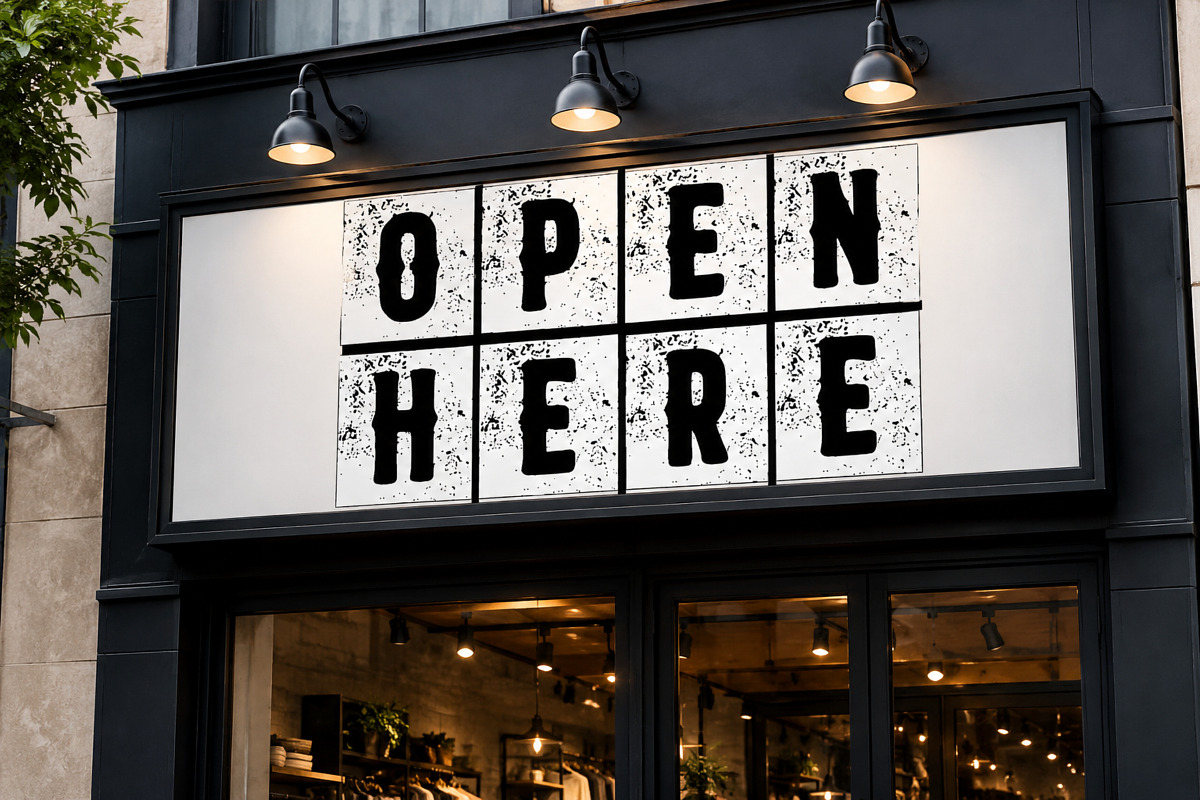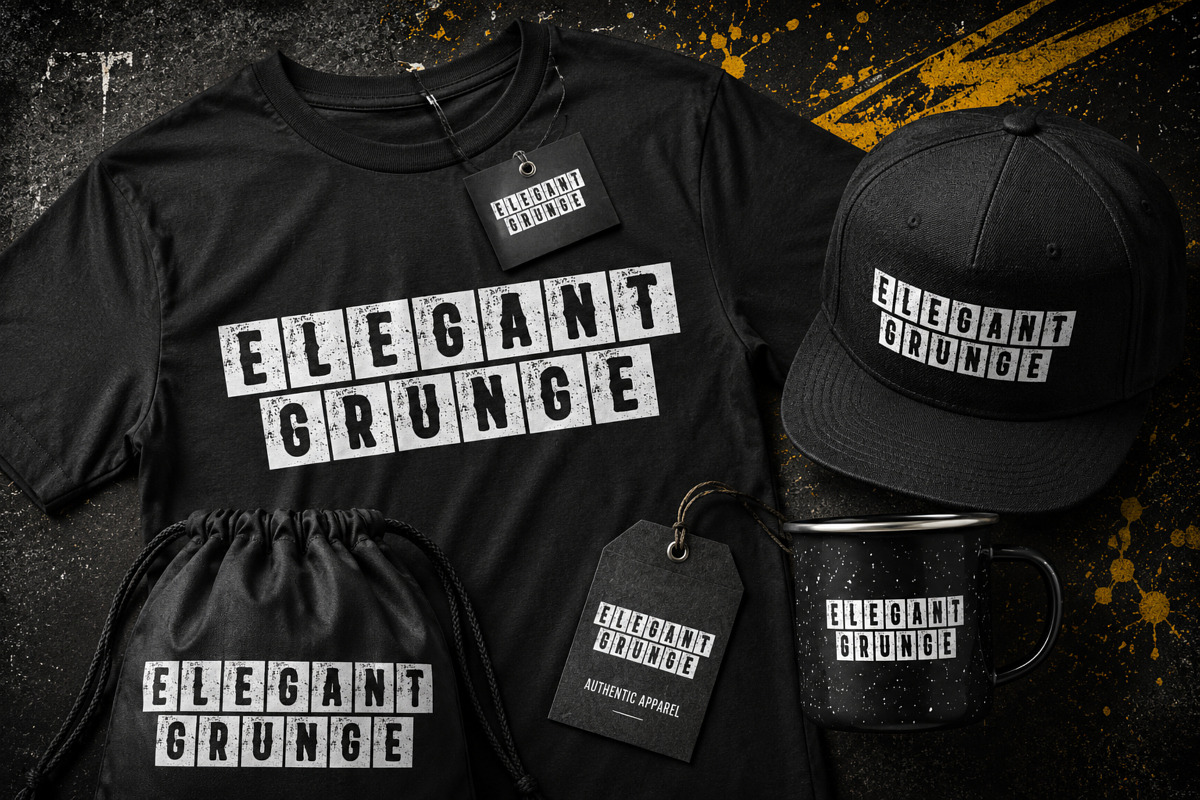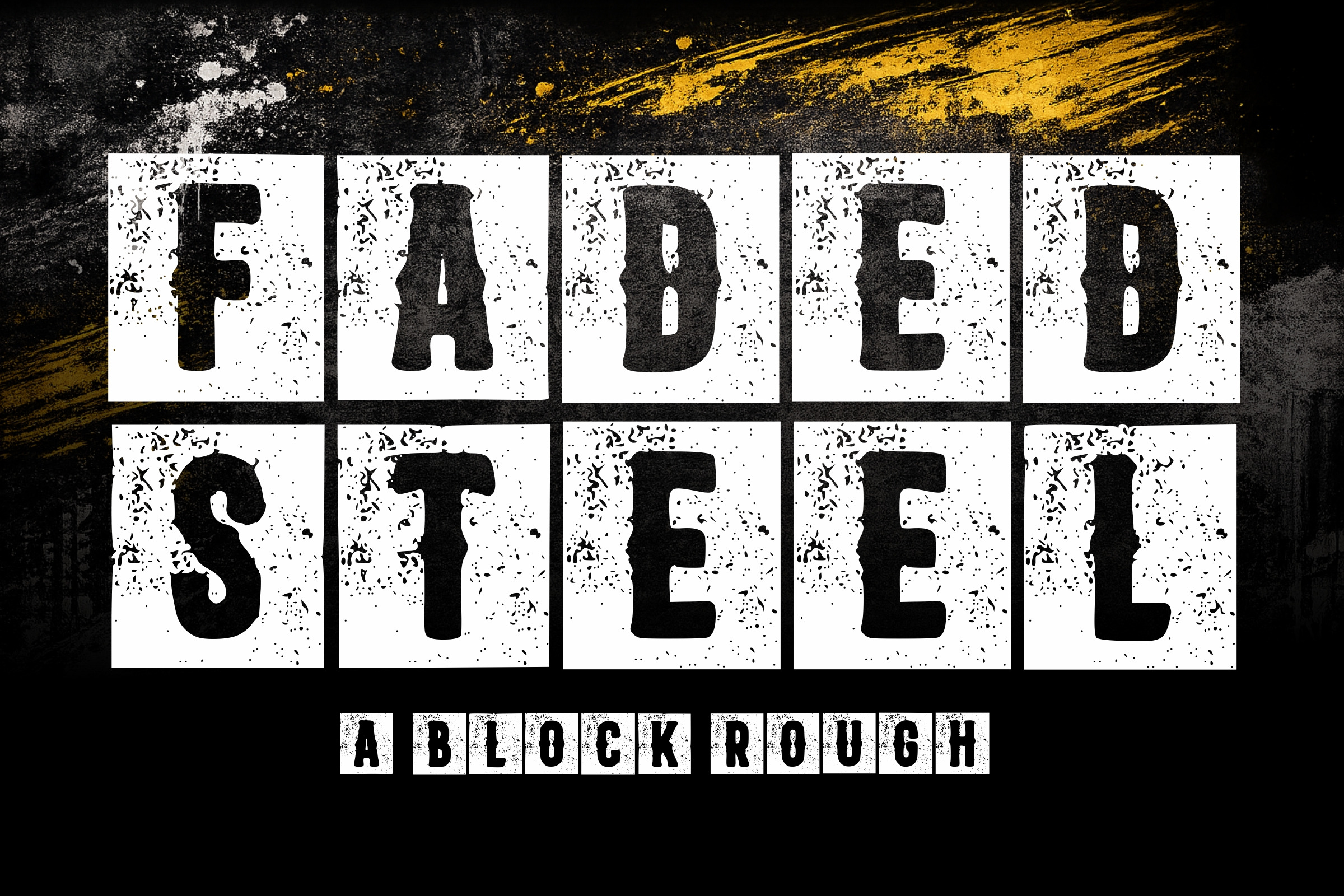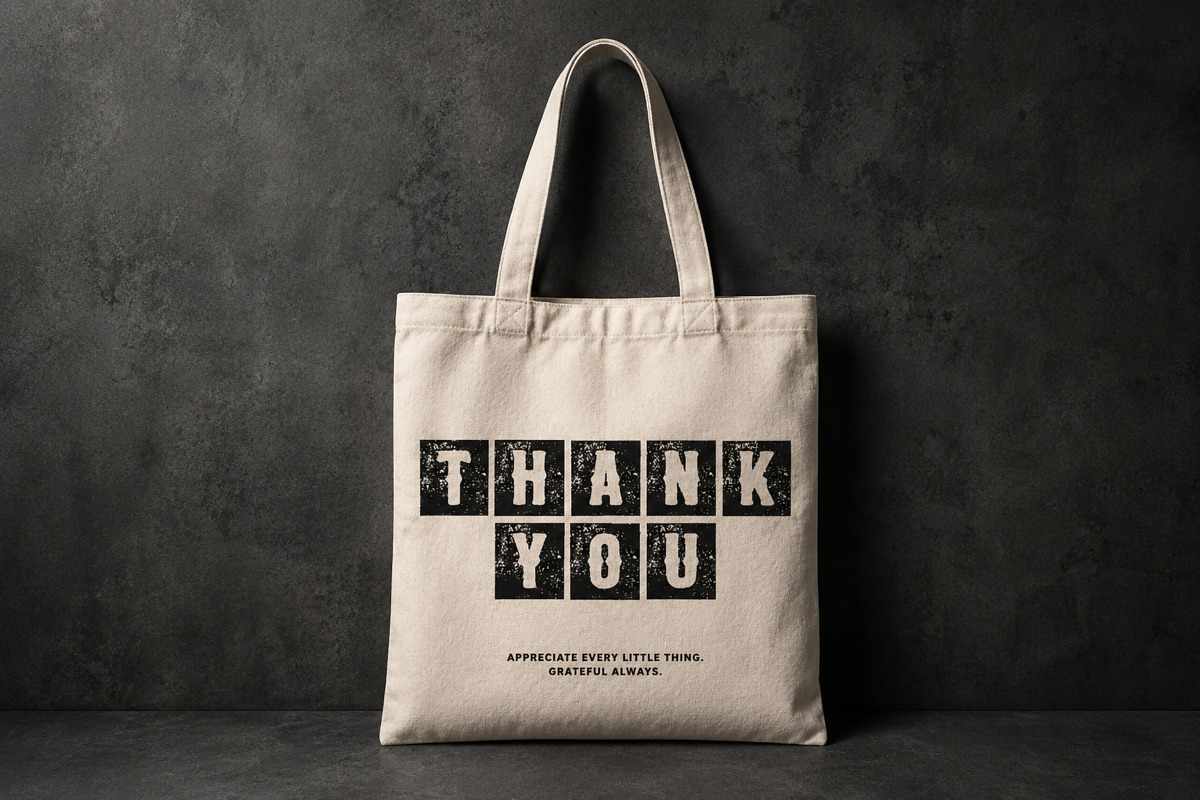
Faded Steel - Rough Block Font
Create striking designs with Faded Steel, a rugged block display font crafted with authentic distressed textures for a bold industrial appearance.
Inspired by vintage stencils, weathered metal, factory signage, and urban street graphics, this font delivers strong visual impact while maintaining excellent readability. Its rough edges and worn details make it ideal for projects that demand strength, character, and attitude.
Sports Branding
Streetwear & Apparel
Posters & Flyers
Product Labels
Military & Tactical Themes
Industrial Branding
Album Covers
Event Promotions
YouTube Thumbnails
Cricut & Silhouette Projects
Headlines & Display Typography
Whether you're designing for urban brands, rugged products, or vintage-inspired artwork, Faded Steel brings a powerful distressed style that stands out.
Uppercase Letters
Rough Distressed Style
Bold Block Typeface
Industrial Inspired
Vintage Texture
Stencil Look
Strong Display Font
High Readability